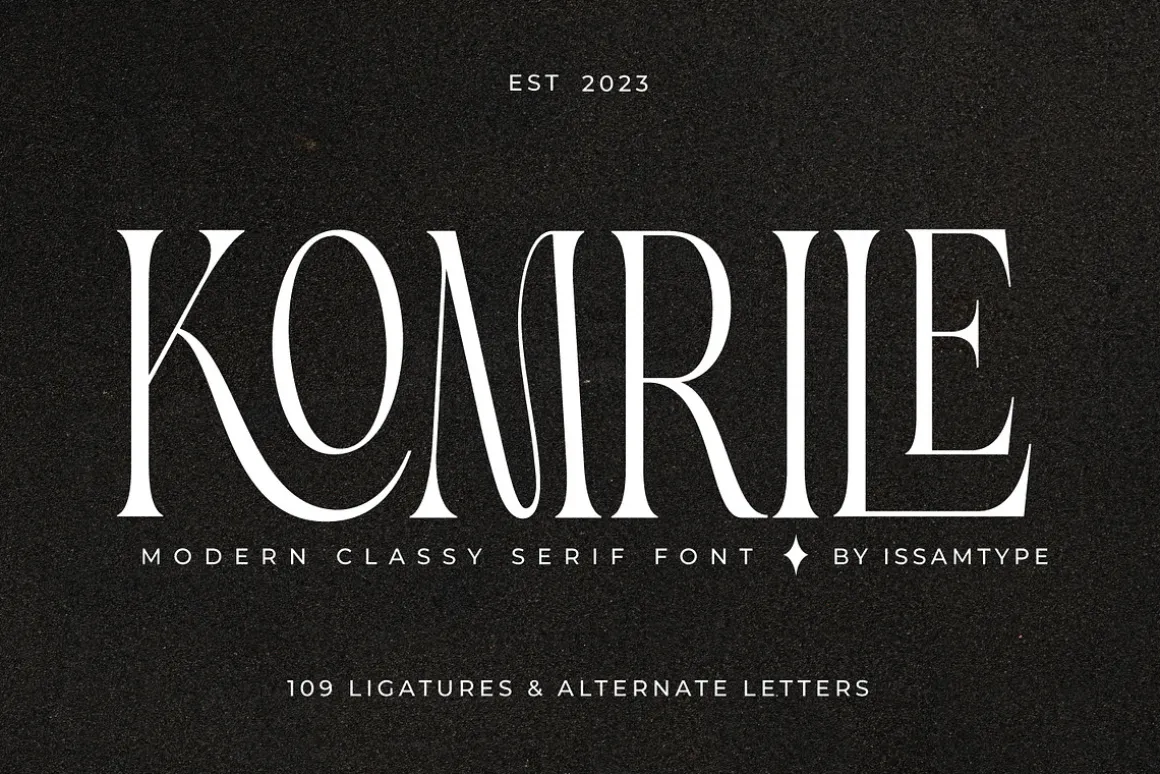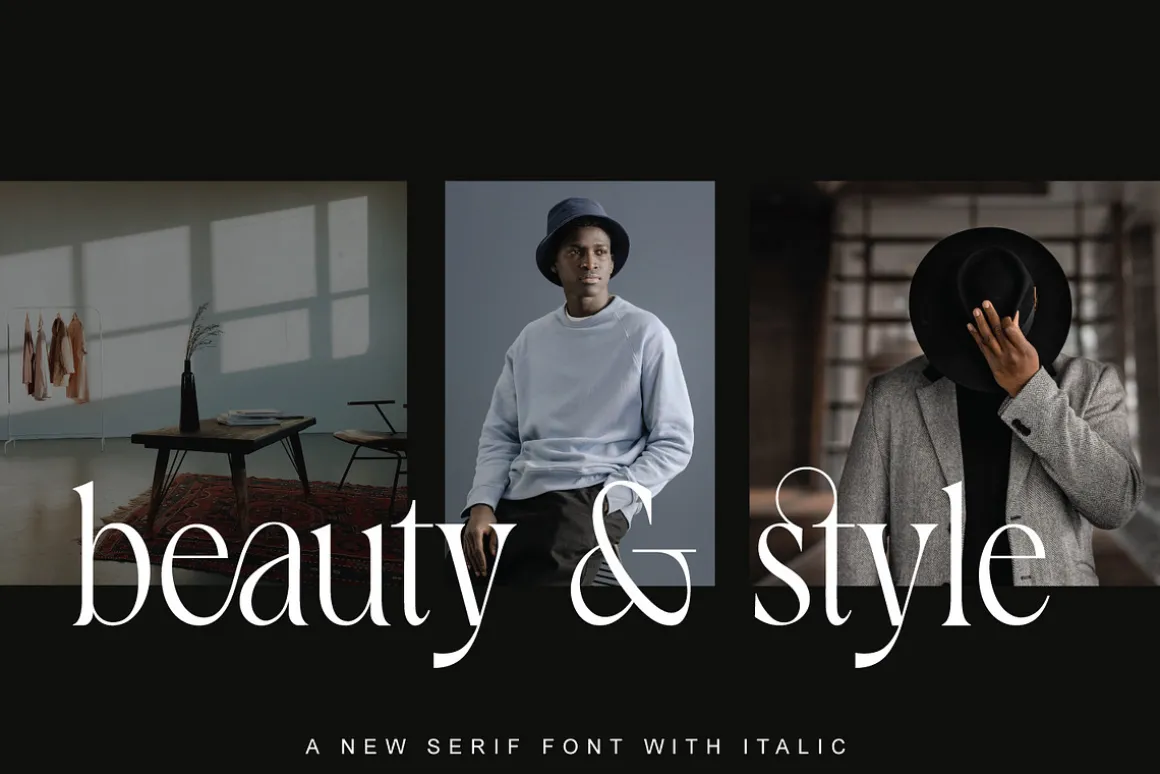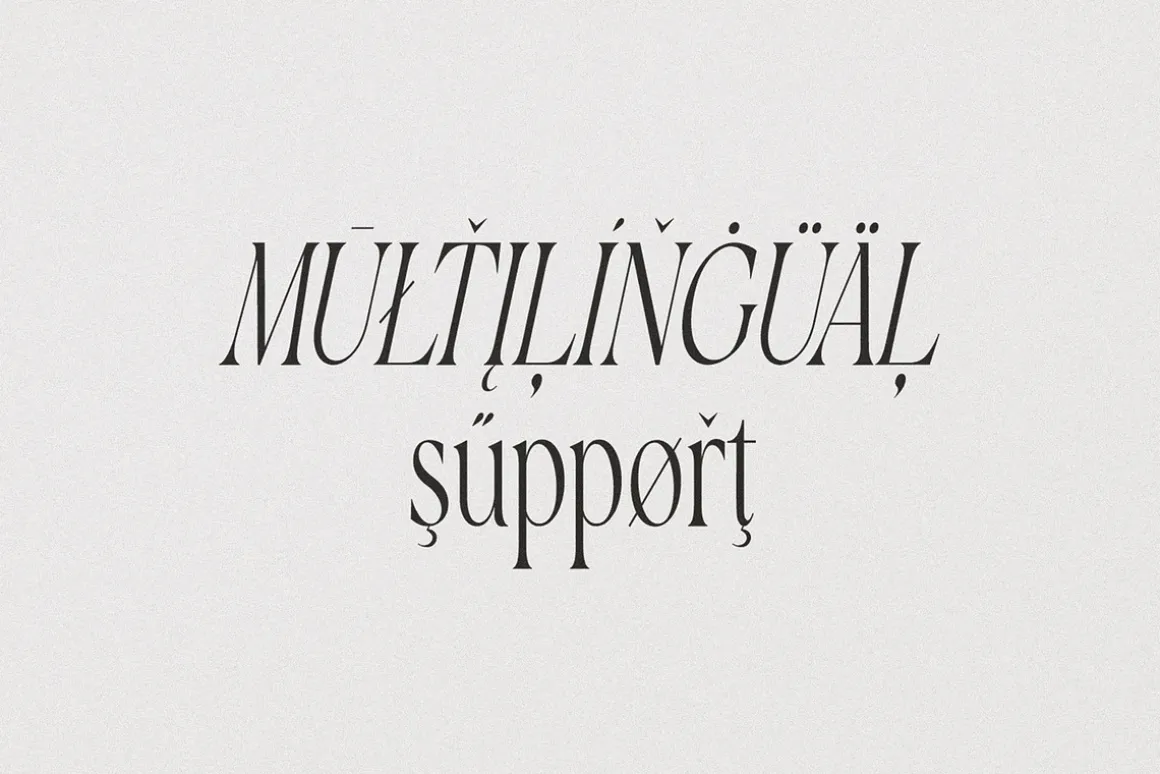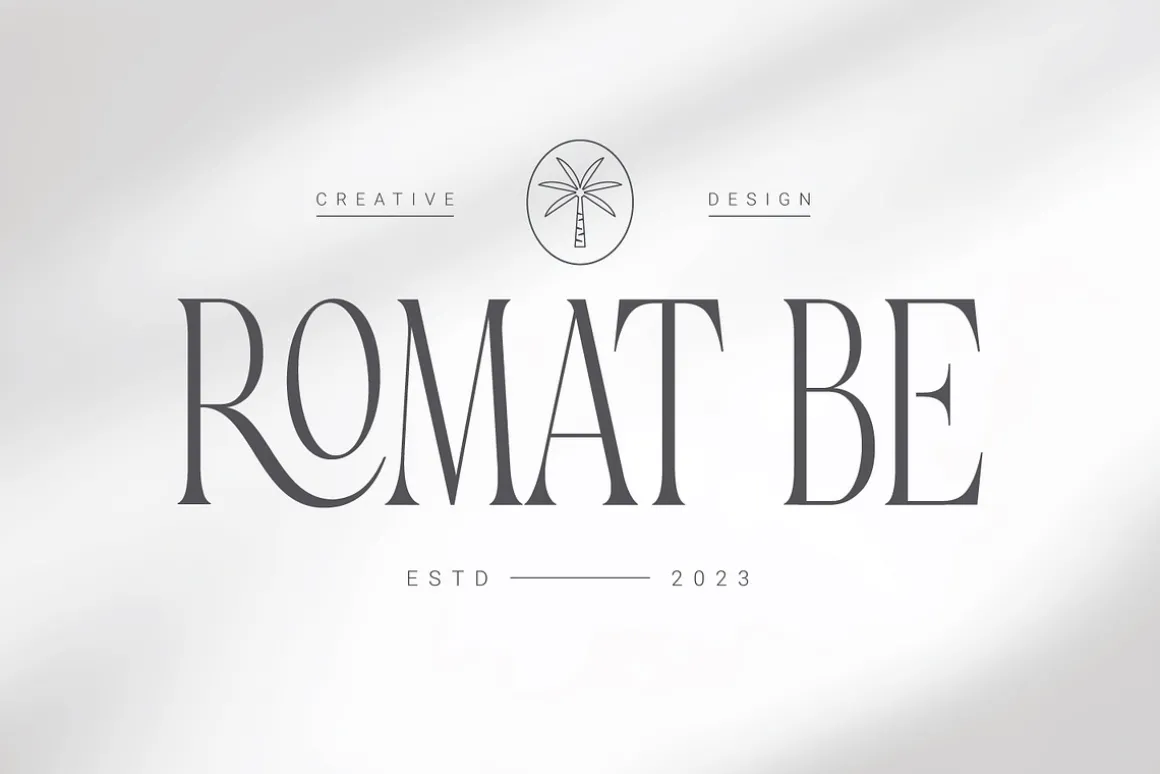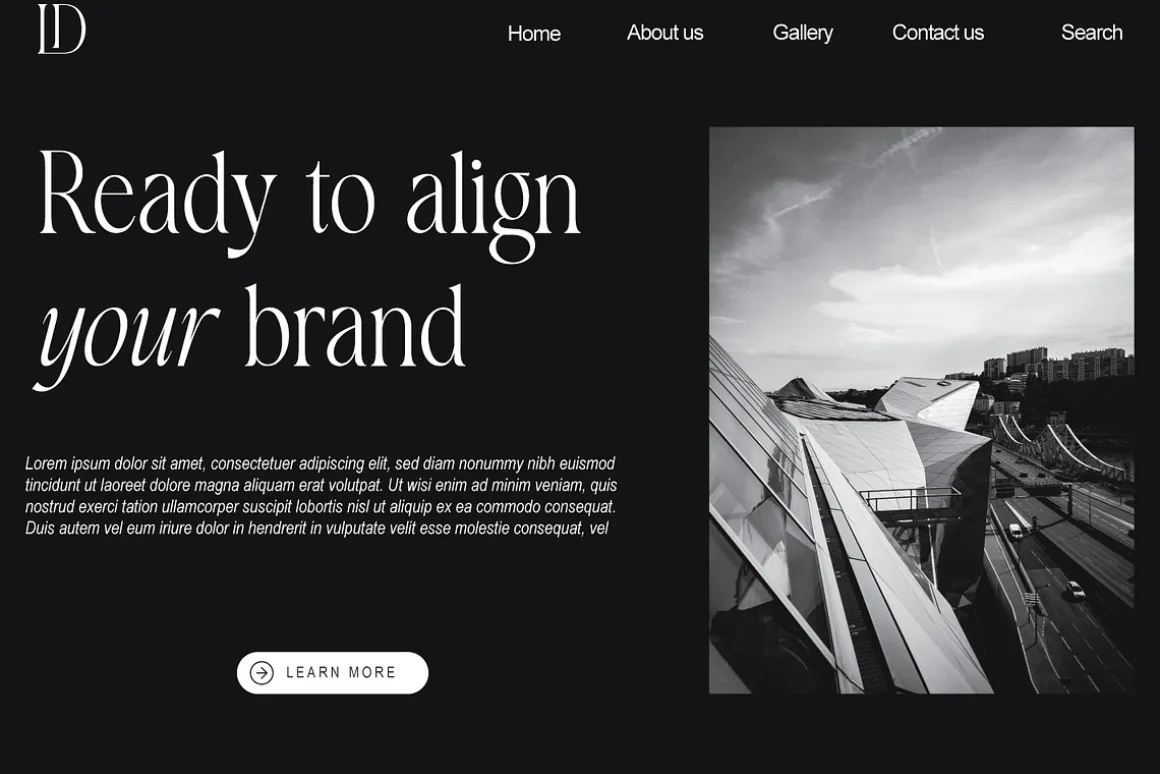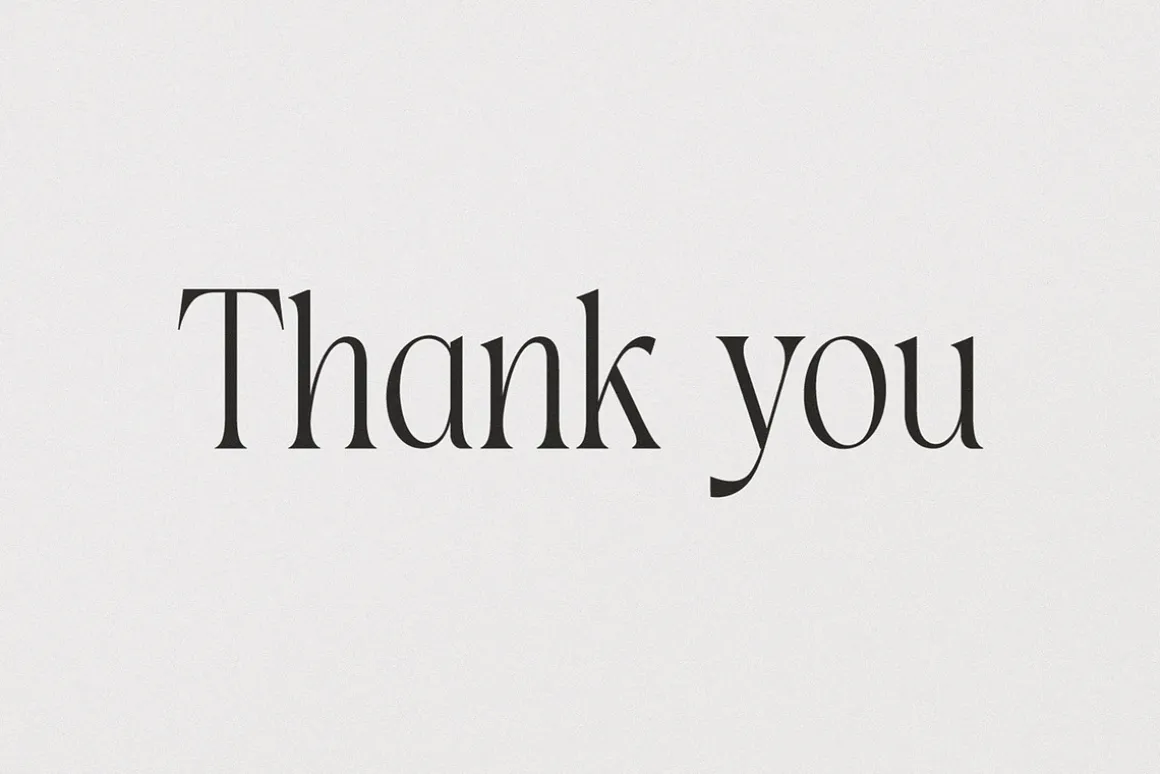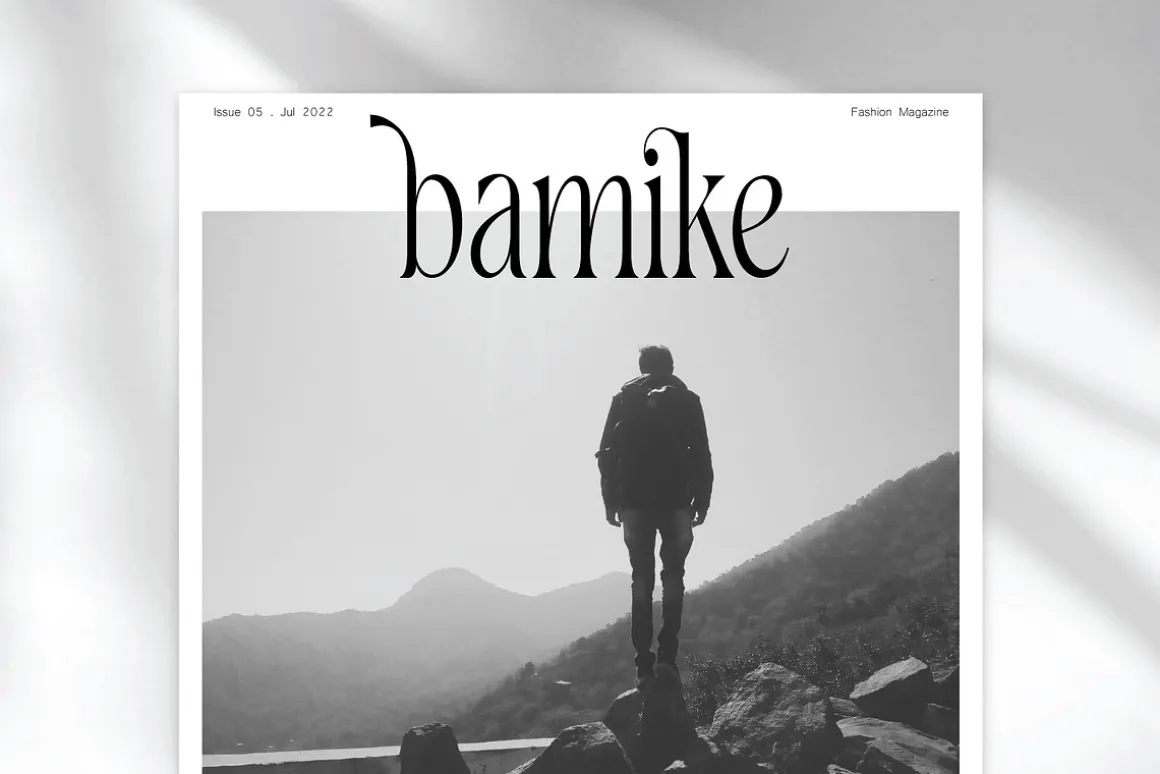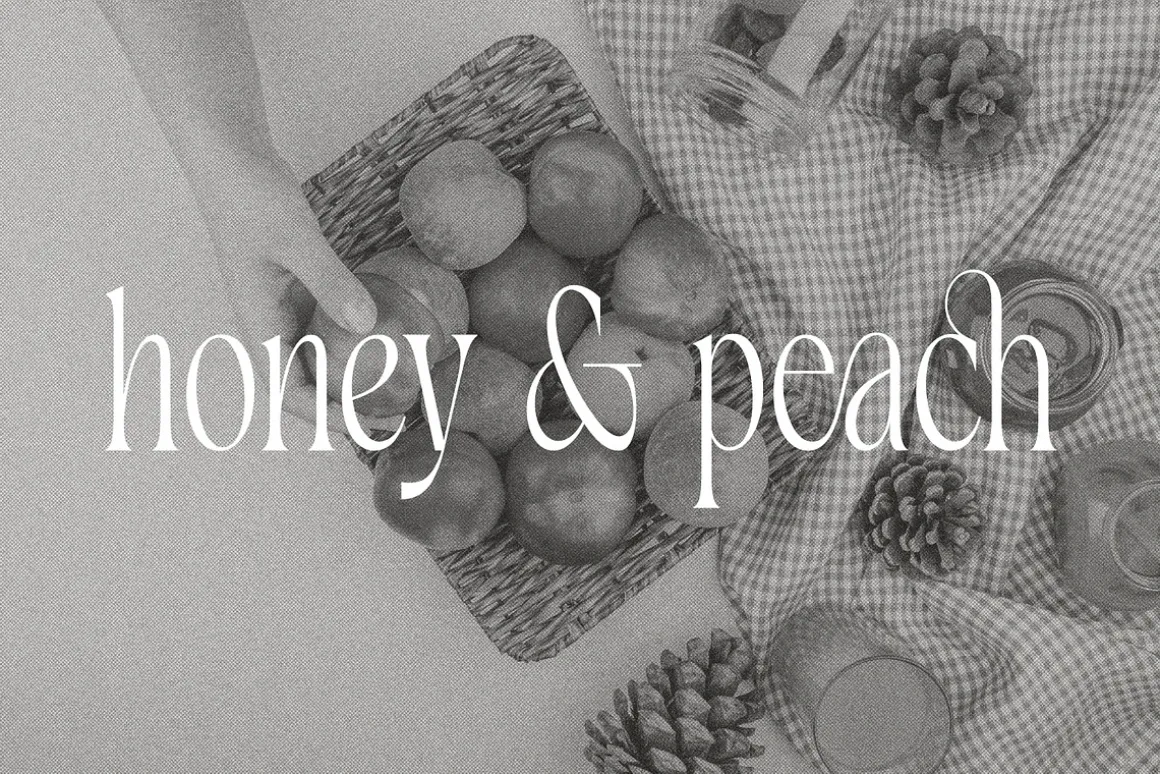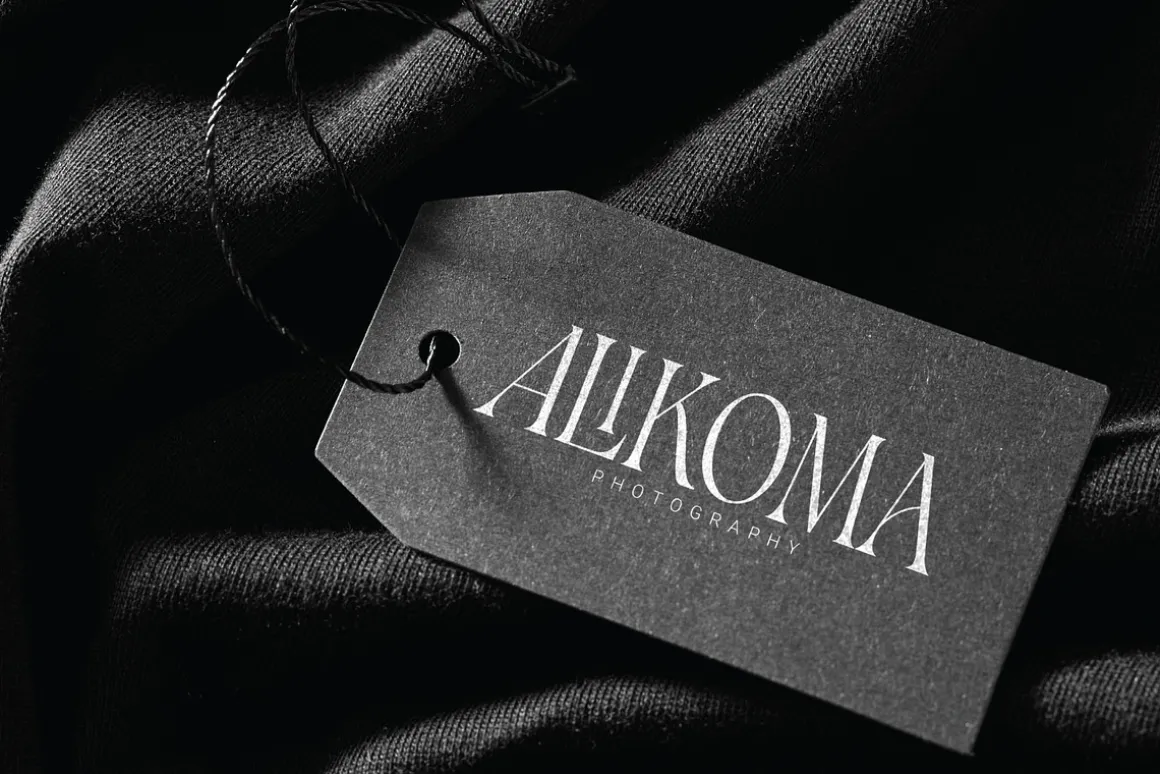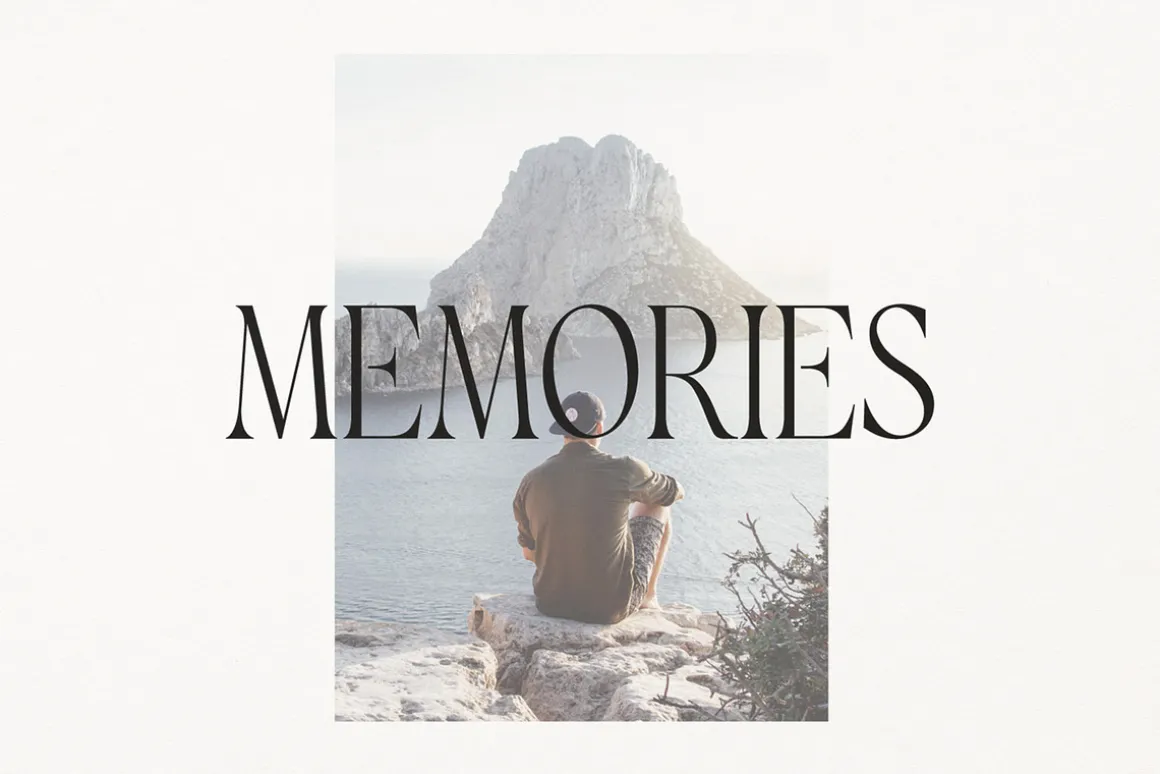
Komrile is a serif font combines a vintage look with a modern flair that give it a fancy and unique style. This awesome font is perfect for branding, logos, invitation, social media posts, photography, watermark and so much more.
Komrile comes with regular, italic, Condensed and Condensed italic font styles.Uppercase & lowercase letters, numbers, punctuation, ligatures, alternates and multilingual support.
OpenType Features
- Kerning
- Alternates
- Ligatures
- Stylistic Sets